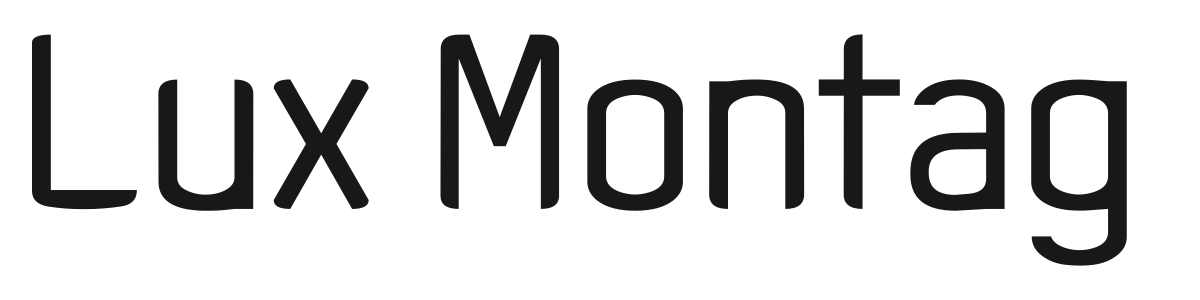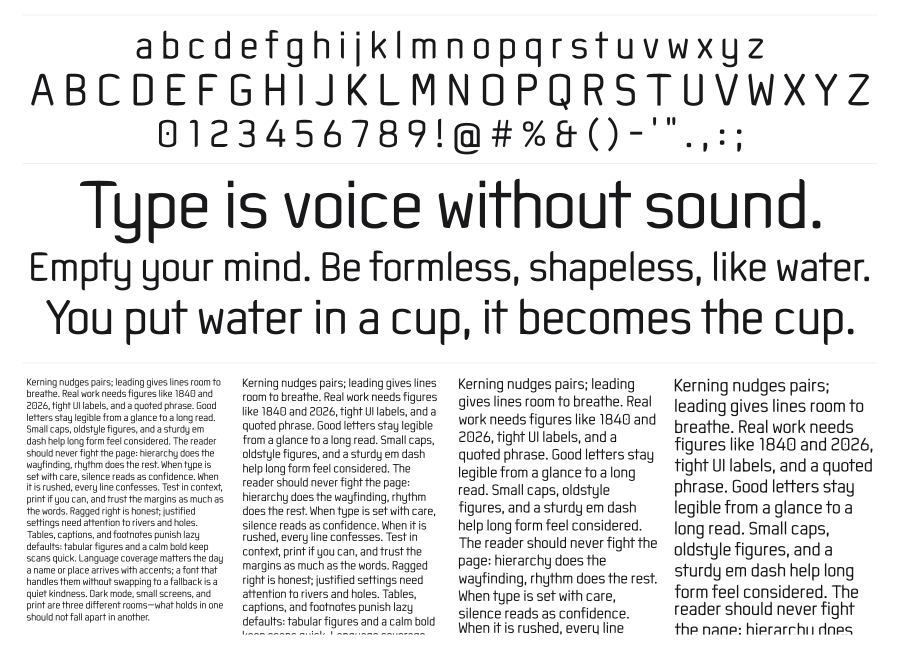
Lux Montag
Lux Montag is a clean geometric sans-serif with softly rounded terminals and near-monoweight strokes. It occupies the practical middle ground between strict geometry and approachable warmth, making it a solid choice for interfaces, branding, and screen-forward design. The even proportions and open spacing keep it highly legible across sizes.